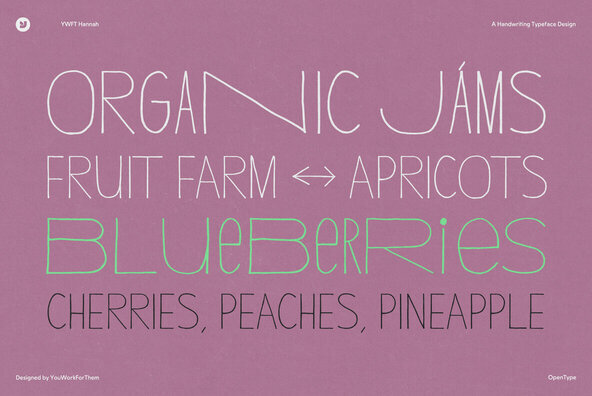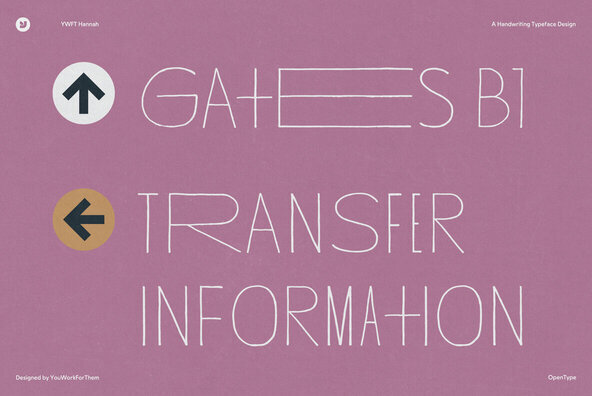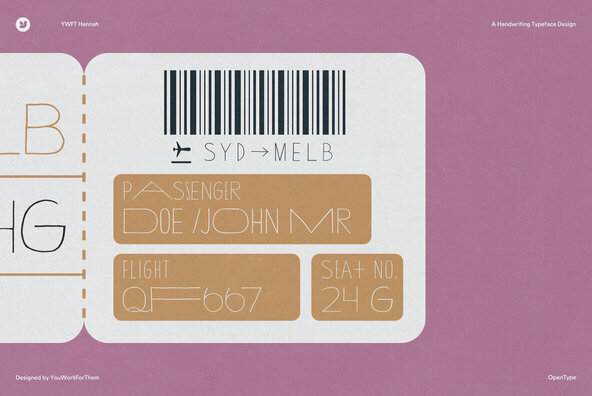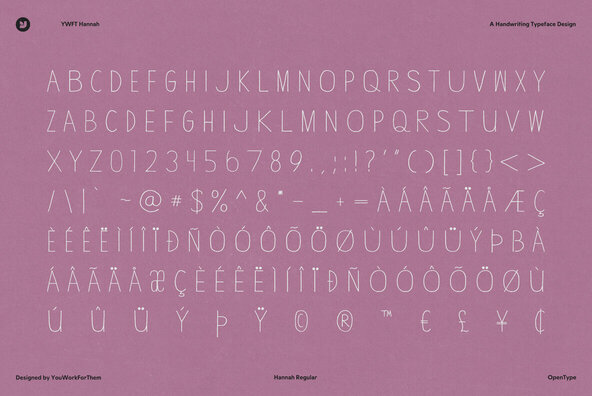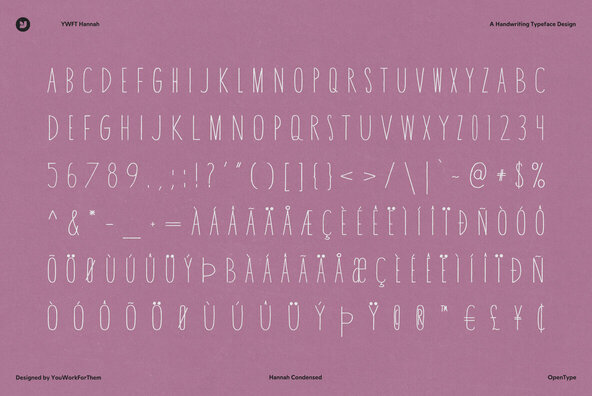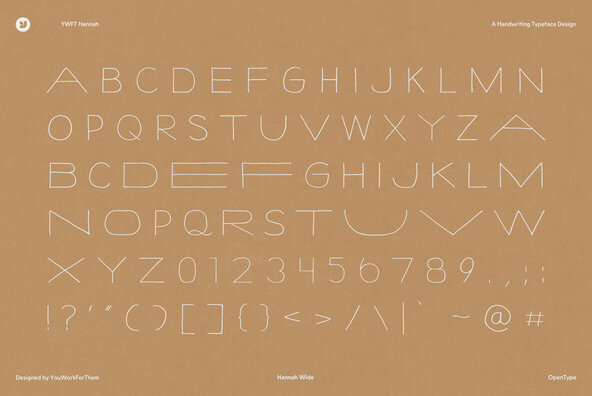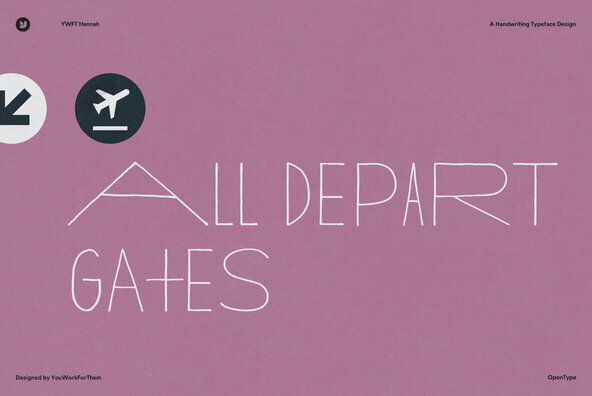
YWFT Hannah is a type design comprised of three versions that work together as one, producing not variation and contrast between weights but between widths. The loose, hand drawn quality adds yet another layer of personality to the font.
YWFT Hannah is a type design comprised of three versions that work together as one, producing not variation and contrast between weights but between widths. The loose, hand drawn quality adds yet another layer of personality to the font. Hannah is similar to one of our popular Handset designs, YWFT Thinaire, but is available in OpenType format which makes Hannah much more versatile. There are also some additional unicase characters included in the font which can be activated as contextual alternates in OpenType.
YWFT Hannah was designed in 2007-2008, and has seen many clones soon follow. The difference between YWFT Hannah and these clones is that none of them offer the powerful OpenType features we developed into YWFT Hannah.